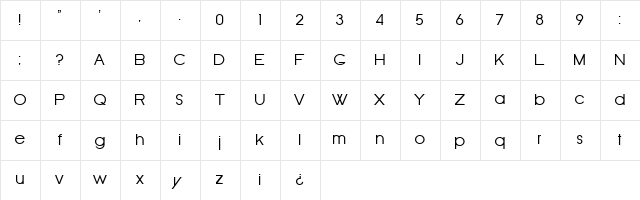
Old Republic Regular
Design Context for Old Republic Typeface
Old Republic offers clean, dependable letterforms without strong stylistic allegiance, making it a practical choice for designers who need flexibility.